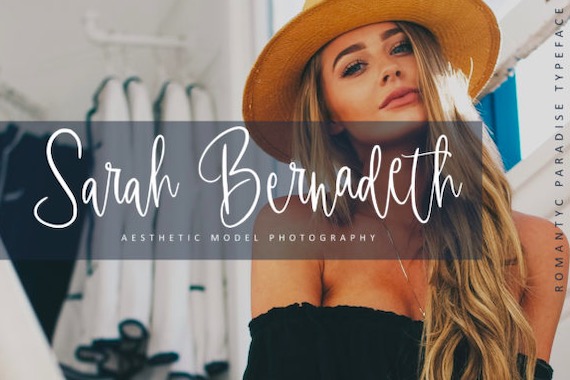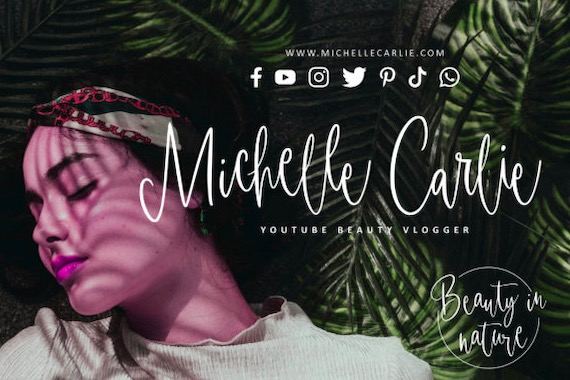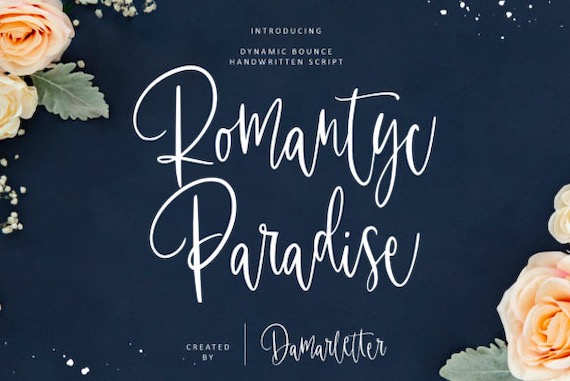
Romantyc Paradise Font is an elegant fashionable signature-style handwritten script typeface that was created and shared by Damarletter Studio. It looks classy and elegant. This font was created to look as close to a natural handwritten as possible. Romantyc Paradise is PUA encoded which means you can access all of the glyphs and swashes with ease!
Romantyc Paradise Handwritten Font